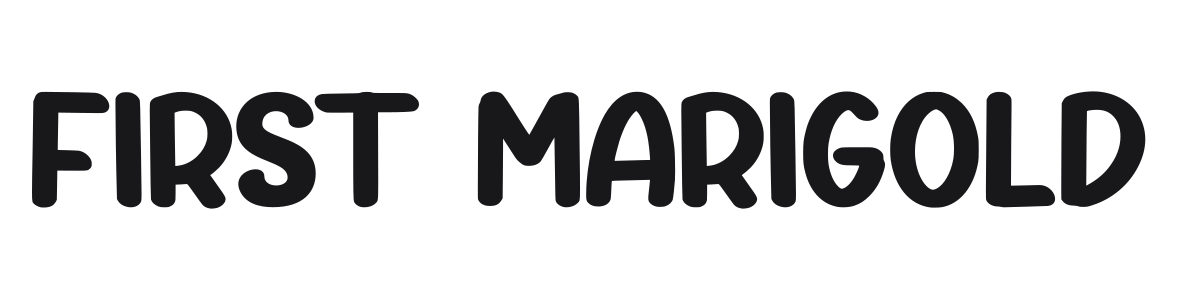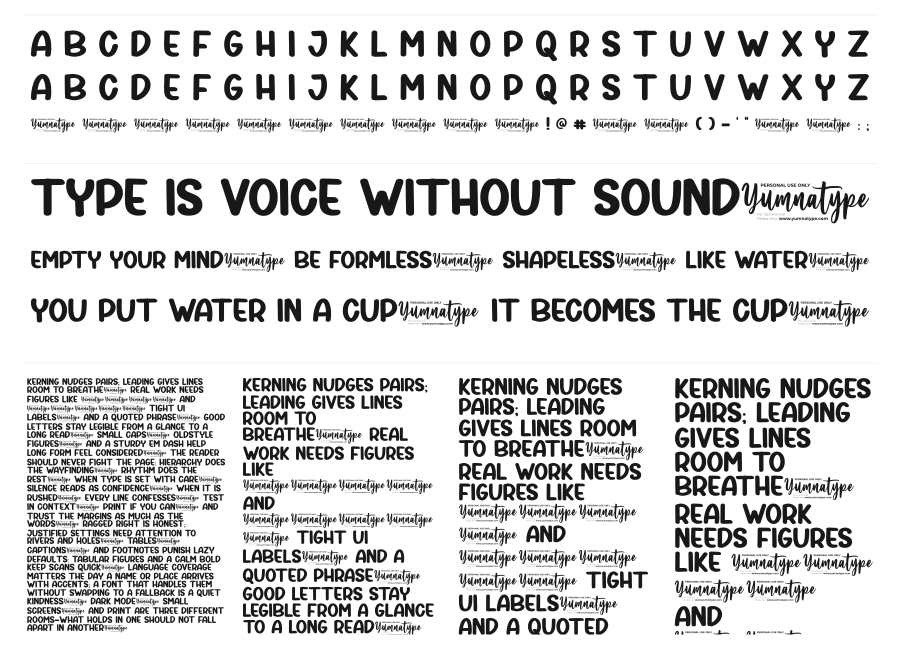
First Marigold
First Marigold is a bold rounded sans with heavy strokes and softly curved terminals that give it a warm, approachable personality. The wide proportions and consistent weight make it pop at large sizes without feeling aggressive. It sits comfortably in branding, packaging, and anywhere a friendly headline is needed.